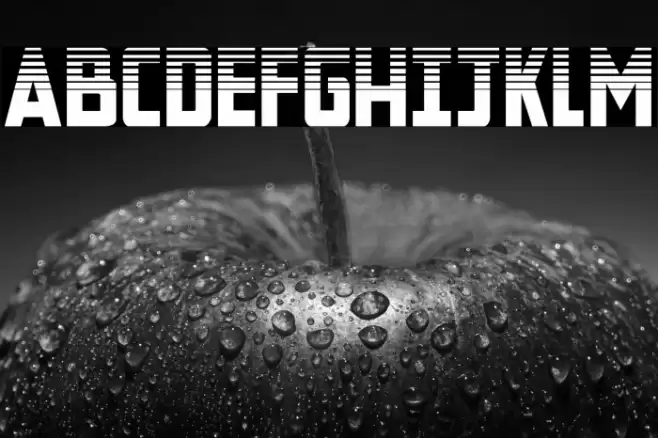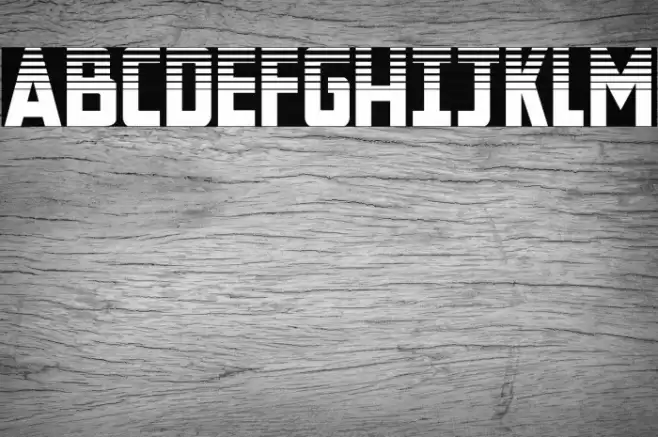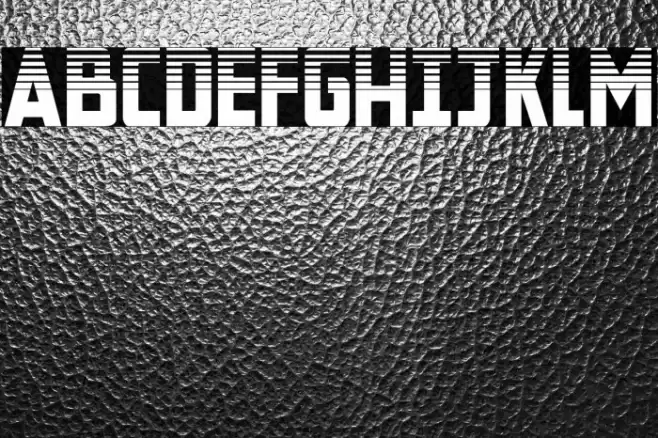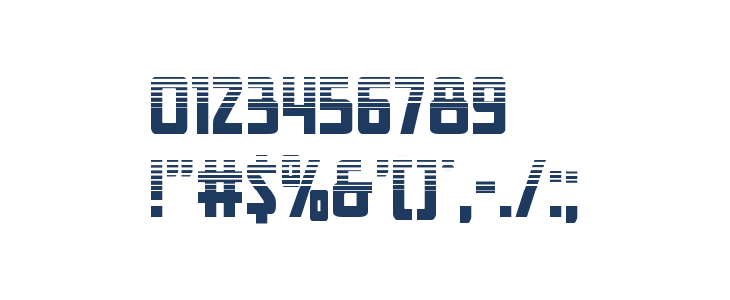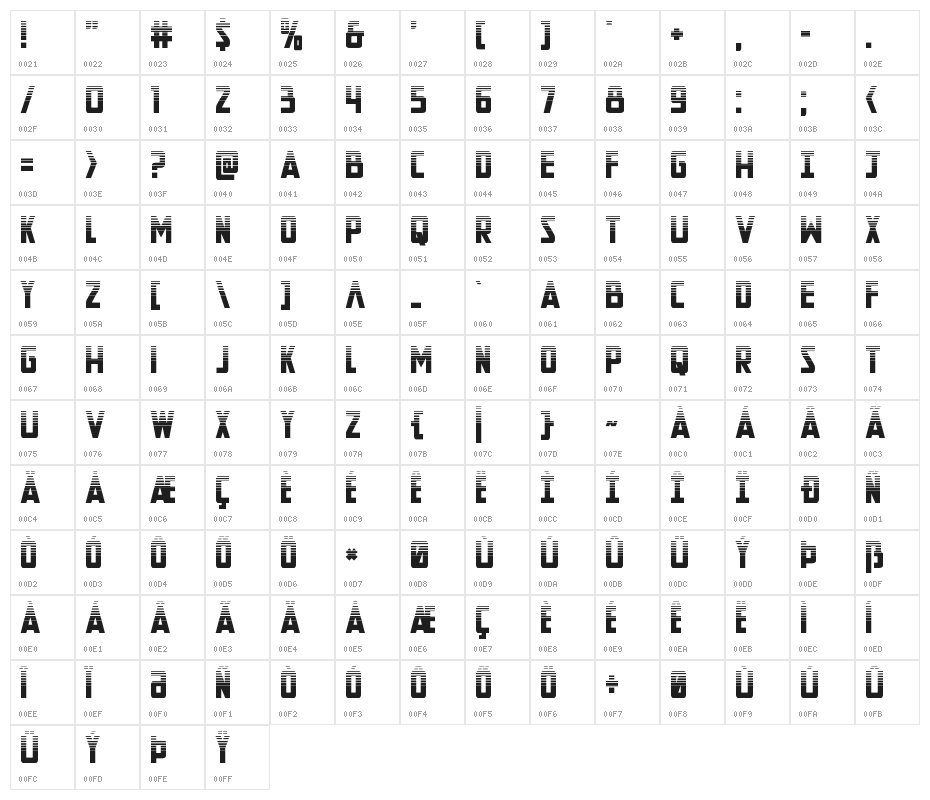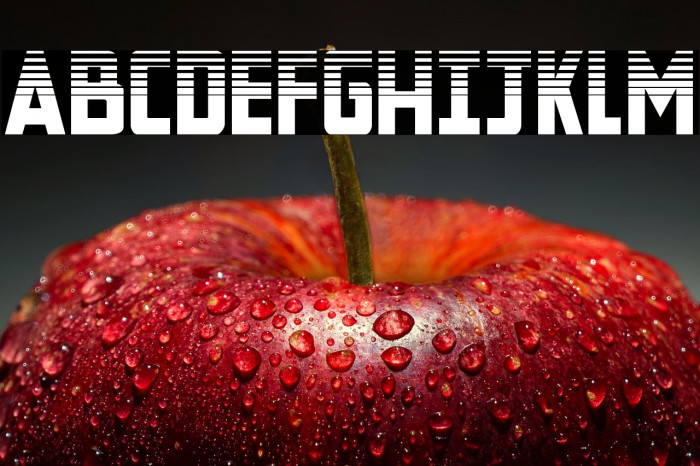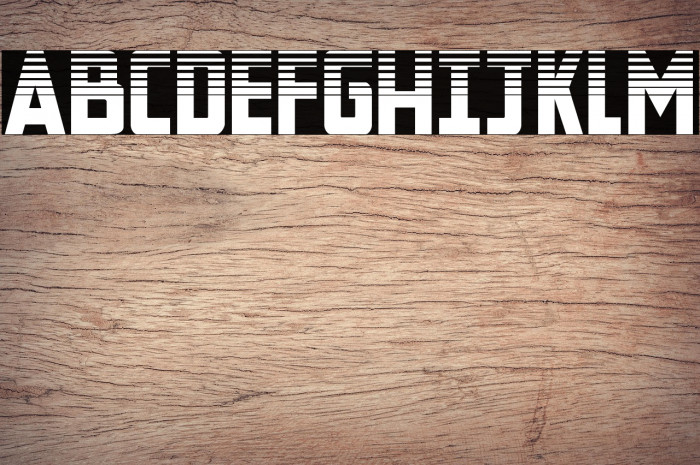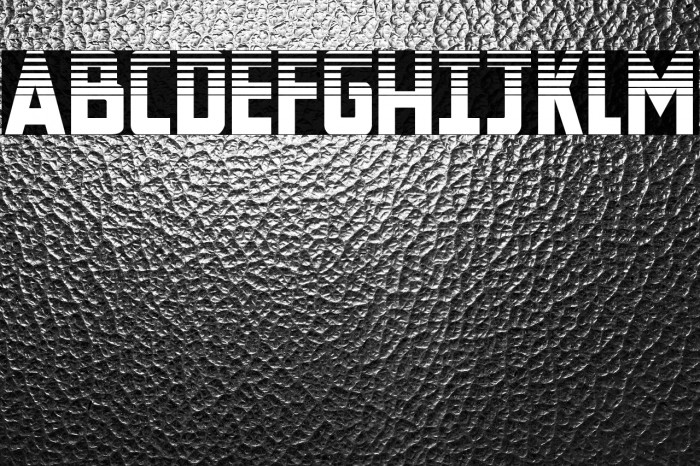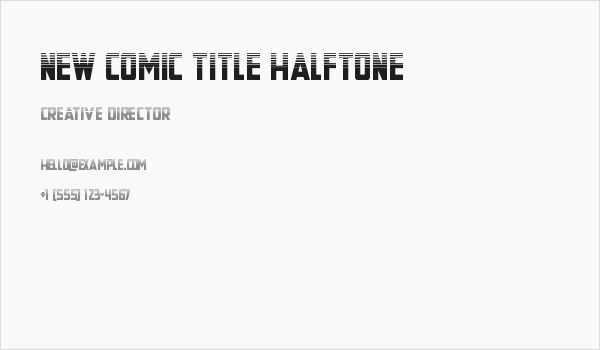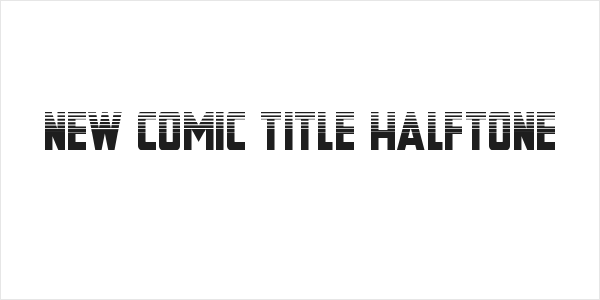
New Comic Title Halftone Font
New Comic Title Halftone Description
This font features a bold, geometric style with a distinctive halftone effect that gives it a dynamic and modern appearance. The uppercase letters are designed with horizontal lines that create a sense of movement and depth, making it ideal for eye-catching headlines and titles. The characters are wide and evenly spaced, ensuring readability while maintaining a strong visual impact. The numbers and special characters follow the same design principles, providing consistency across all elements. This font is perfect for projects that require a futuristic or comic book aesthetic, adding a unique flair to any design.
A bold, geometric font with a halftone effect, ideal for dynamic headlines from Uncategorized fonts.
- Font: New Comic Title Halftone
- Proposed Projects: Comic book titles, futuristic posters, video game graphics, and branding materials.
- Width: Expanded